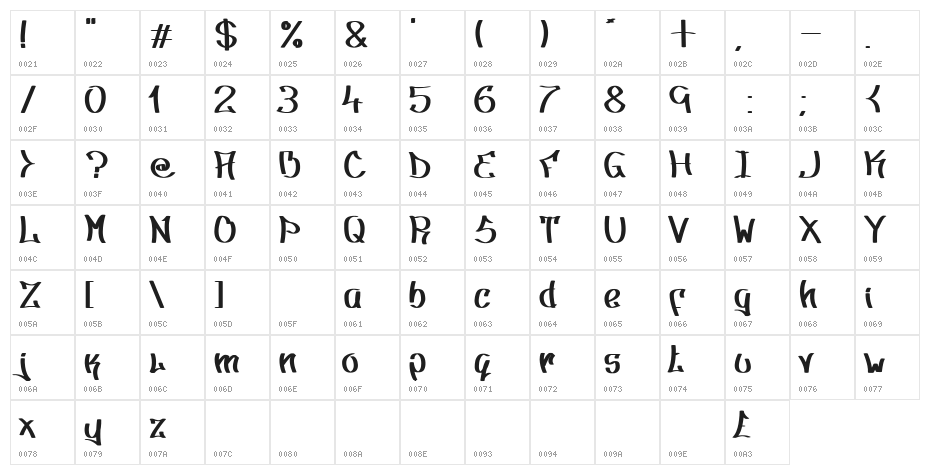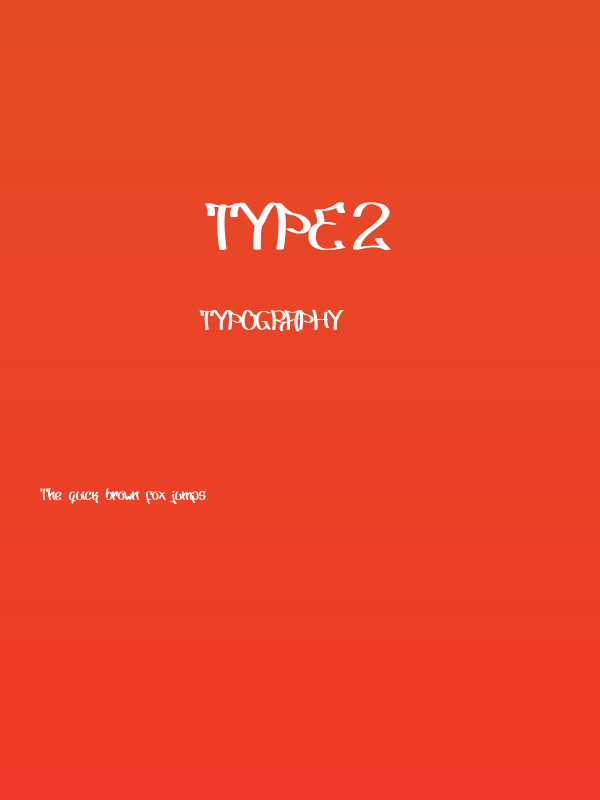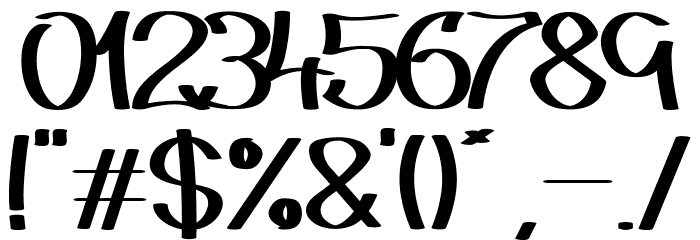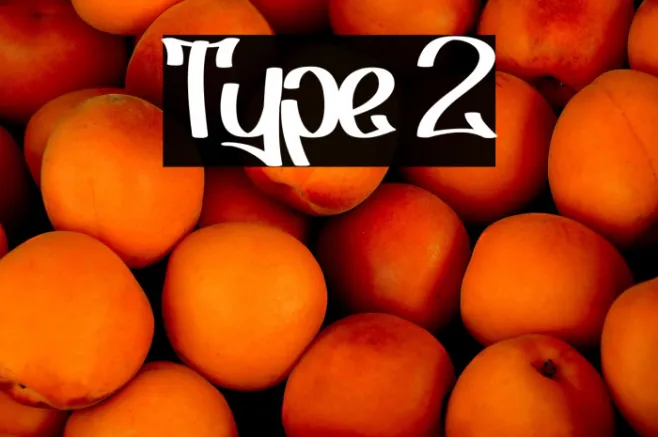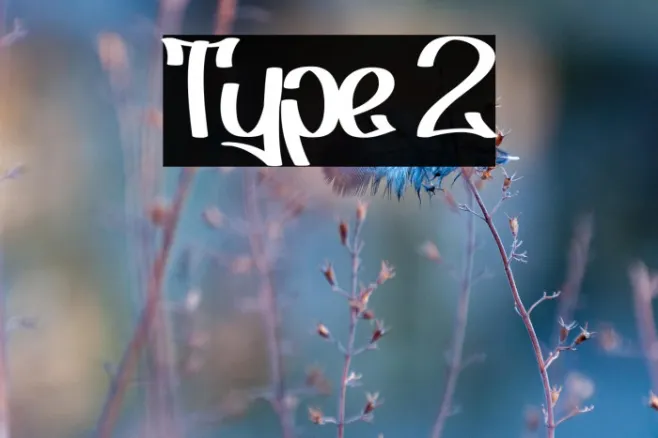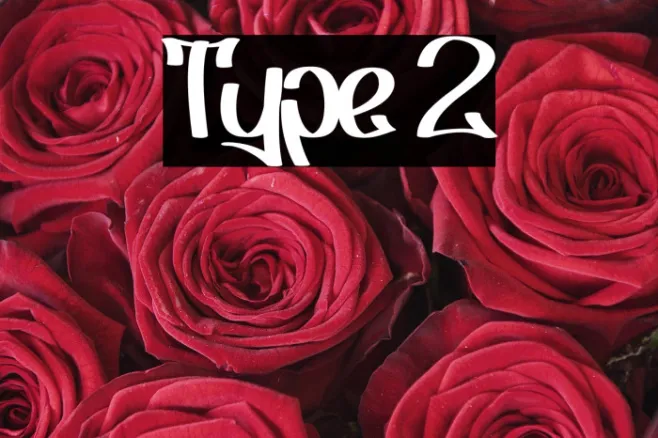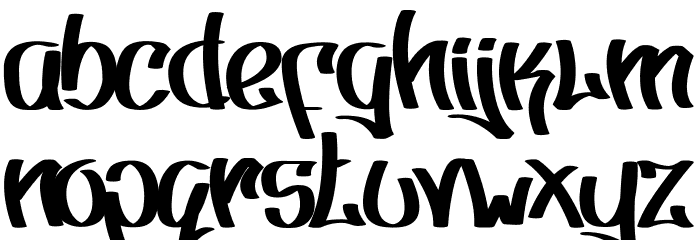
Type 2 Font
Type 2 Description
This font exhibits a bold and dynamic style with a graffiti-like appearance. The characters are highly stylized with exaggerated curves and angles, giving them a sense of movement and energy. The uppercase letters are particularly striking, with unique flourishes and varying line thicknesses that create a sense of rhythm and flow. The lowercase letters maintain this energetic style, while the numerals and special characters are equally bold and expressive. This font is designed to stand out and make a statement, perfect for projects that require a strong visual impact.
| Overall Style | Modern, Urban |
| Proposed Projects | Ideal for street art designs, urban-themed posters, music album covers, and edgy branding projects. |